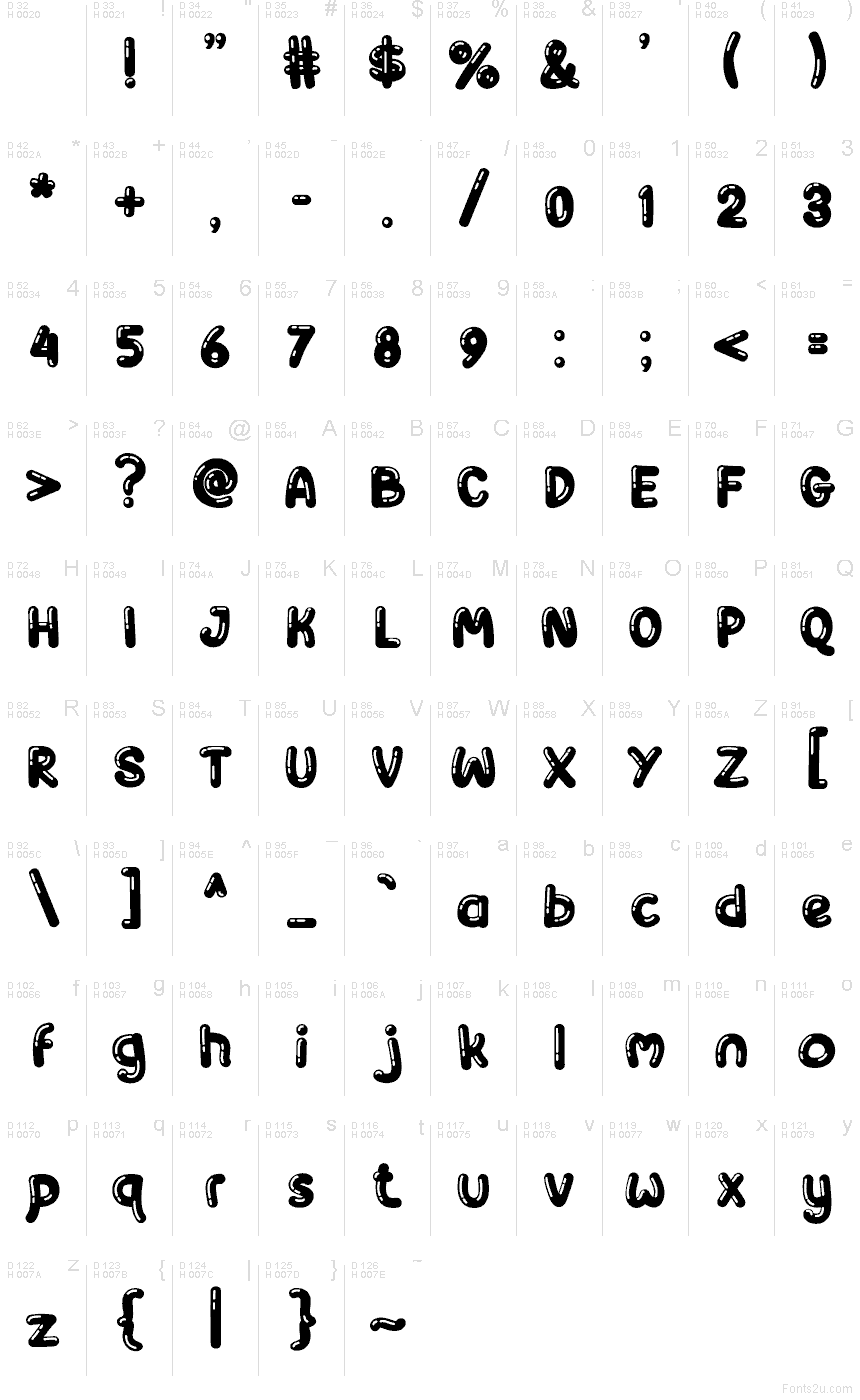
Bulbin font by Tokokoo Studio is a free cartoon display typeface with a glossy, squishy look that feels straight out of a Saturday-morning show. Each letter looks puffed up and shiny, with little highlight streaks that make the shapes feel like inflated balloons or dripping candy, so your words almost seem to wobble on the page. It’s bold, chunky, and instantly grabs attention in a fun, lighthearted way.
Using Bulbin, you can bring loud personality to kids’ book covers, birthday invitations, slime or candy packaging, playful logos, YouTube thumbnails, and game titles. This free font shines at larger sizes where its inky, pillowy forms can really stand out. For balance, pair Bulbin with a clean rounded sans serif in small text, and let Bulbin handle the big, bouncy headlines.